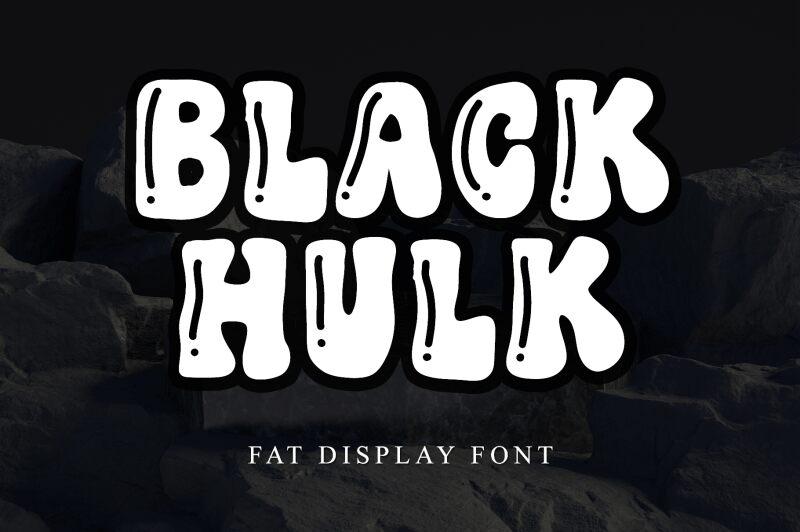
Black Hulk Regular
Black Hulk, crafted by the imaginative minds at Letterafa Studio, stands out as a display font with a playful cartoon style that exudes confidence and energy. With its extra-bold weight, this typeface grips attention with powerful, rounded letterforms that seem to leap off the page. The bubbly contours and solid presence make Black Hulk ideal for injecting fun and boldness into any creative project.
The font's chunky characters are perfect for headlines, logos, and any space where you want your message to stand tall and demand notice. Its aesthetic appeal lies in its balance of approachability and commanding visual impact—making it an excellent choice for designs targeting youthful audiences or projects that require a touch of whimsy without sacrificing strength.
From posters to packaging, branding to digital media displays, Black Hulk offers versatility wrapped in a delightful package. Its unmistakable charm will surely make your designs both memorable and engaging.